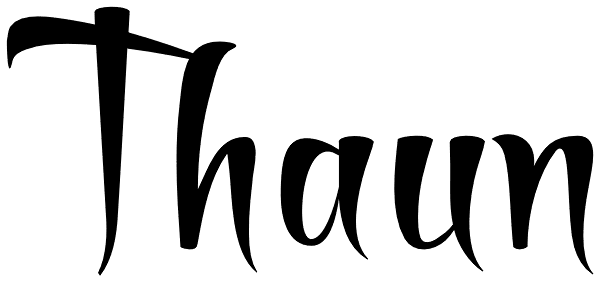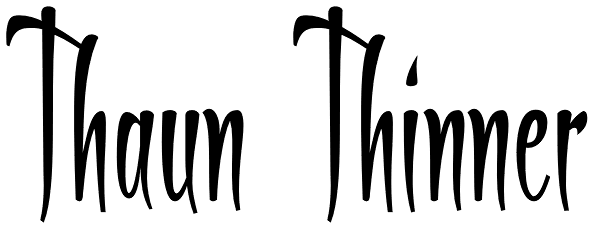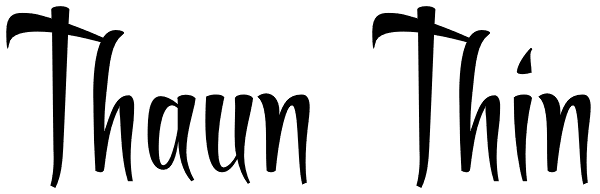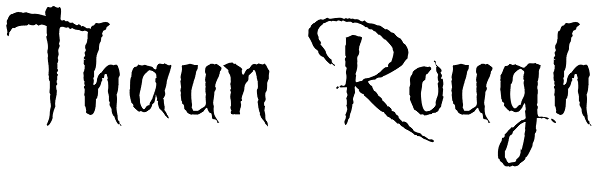
Thaun
I can best describe the Thaun family as a general purpose display family, inspired by Scholtz Fonts' " "Delikat". I wanted to produce a display font that was more robust than Delikat, without losing the delicacy of the original. In order to do this...